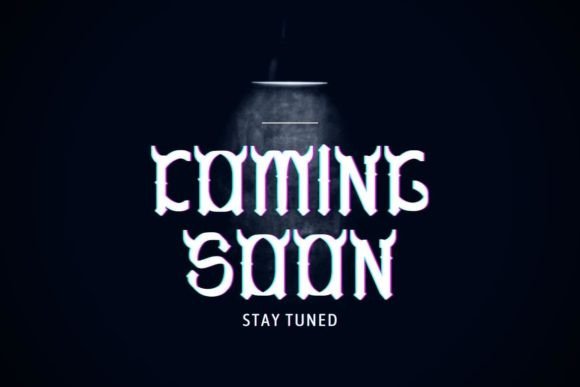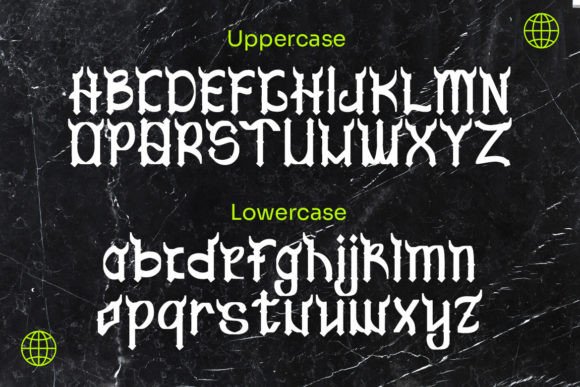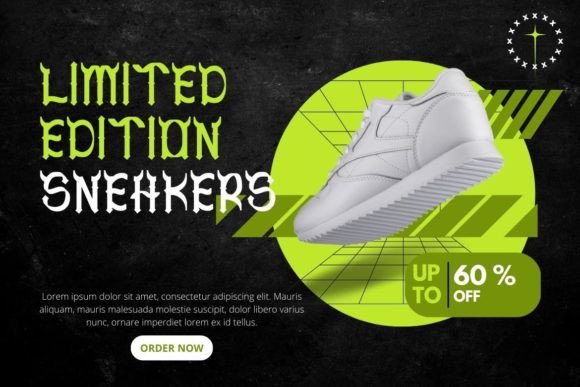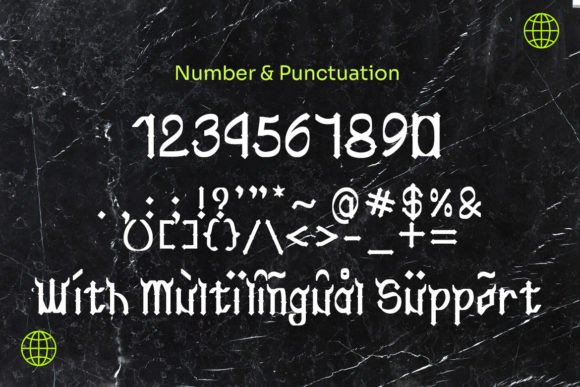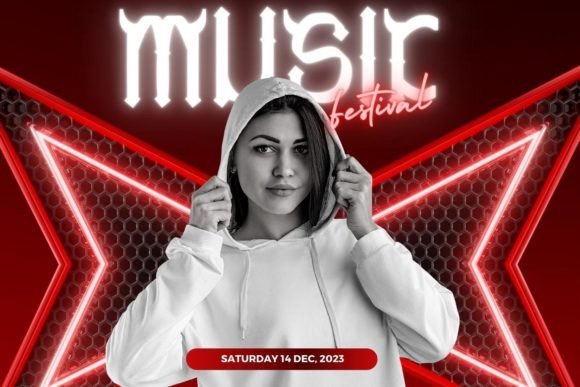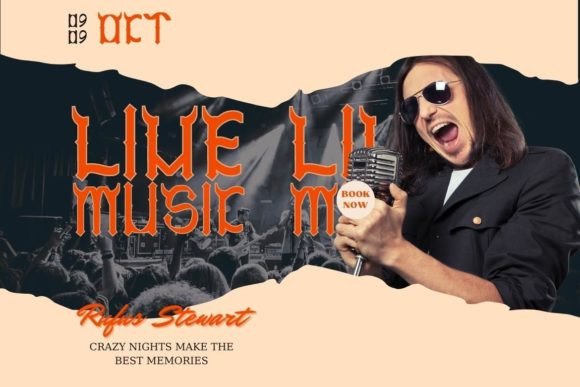
Introduction to Metaliva Font
Do you remember the moment when the perfect design element fell into place, elevating your entire creative project to new heights? For designers, those moments are what make all the hard work worth it. It’s the thrill of seeing your vision come together, and the satisfaction of knowing you’ve added a unique touch to your work.
One such design resource that can bring that magic to your projects is the Metaliva Font, a stunning blackletter-inspired display font that’s sure to leave a lasting impression. With its high-quality design and versatility, this font is a valuable addition to any designer’s toolkit.
Key Features of Metaliva Font
- Features a unique, industrial-inspired aesthetic with a transparent background, making it ideal for modern designs.
- Supports a wide range of languages, including Latin, Cyrillic, and Greek alphabets.
- Perfect for use in logos, typography, and other design elements, where a strong, modern look is required.
Honest Review: Metaliva Font
As a designer, I’m always on the lookout for high-quality design resources to elevate my creative projects. Recently, I stumbled upon the Metaliva Font, and I’m excited to share my honest review.
What works well: ✨ The Metaliva Font offers a sleek and modern aesthetic, making it perfect for a variety of design applications. The font’s clean lines and geometric shapes give it a unique charm that’s sure to stand out. Additionally, the transparent background allows for seamless integration with other design elements.
Some of the key features that I appreciate include:
Limitations: ⚠️ While the Metaliva Font is a great addition to any design resource library, I do wish it came in more font weights and styles. Additionally, some users may find the font’s modern aesthetic too bold for certain design applications.
Overall, I’m impressed with the Metaliva Font and would recommend it to designers looking for a high-quality, modern font for their creative projects.
Use the Metaliva Font with a transparent background to create a modern and sleek design.
The Metaliva Font is ideal for use in logos, business cards, and other creative projects where a high-quality font is required.